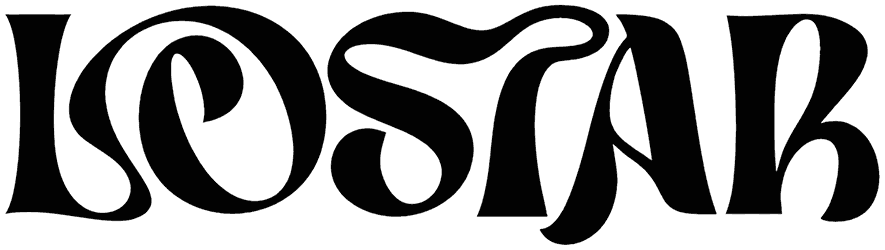
Lostar Font
Give your texts a lively and modern look with a unique wavy item, which is known as Lostar. This groovy font has bulky and smooth lettering that reflects a salient and elegant mood. Even if there is no backup of lowercase letters, don’t lose this distinct groovy font and try it for your intended designs, such as flyers, business cards, apparel, and so forth.